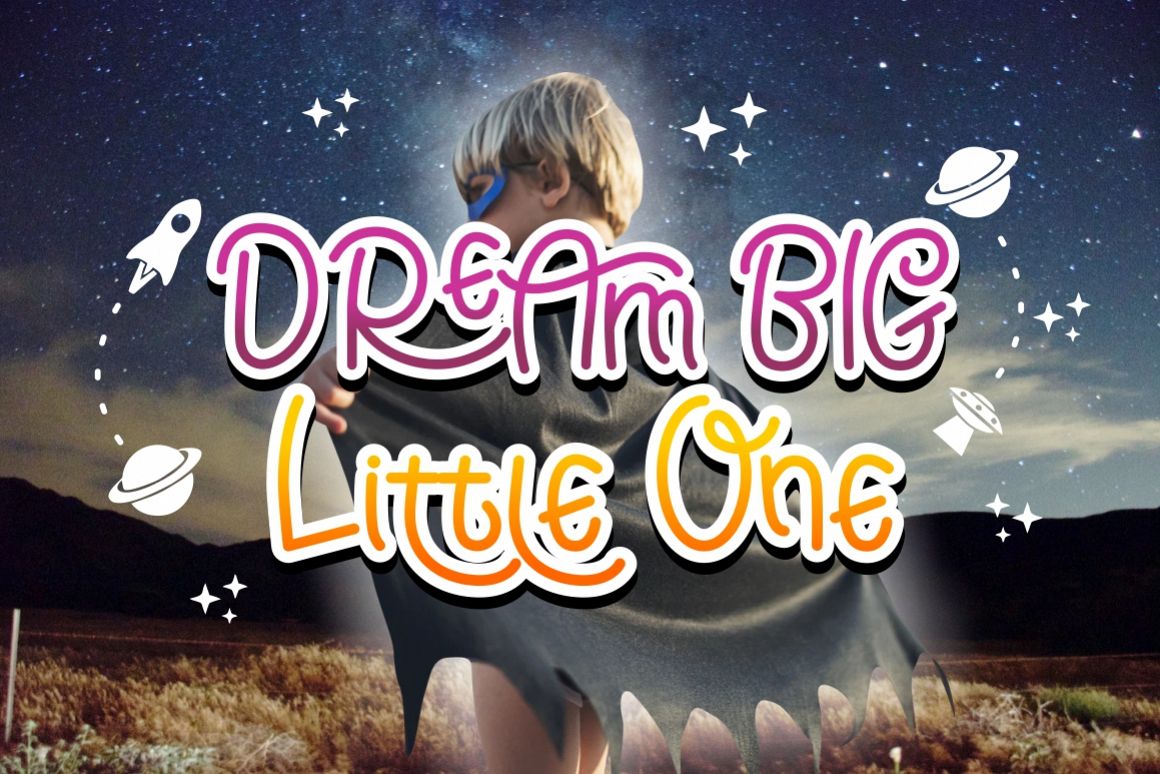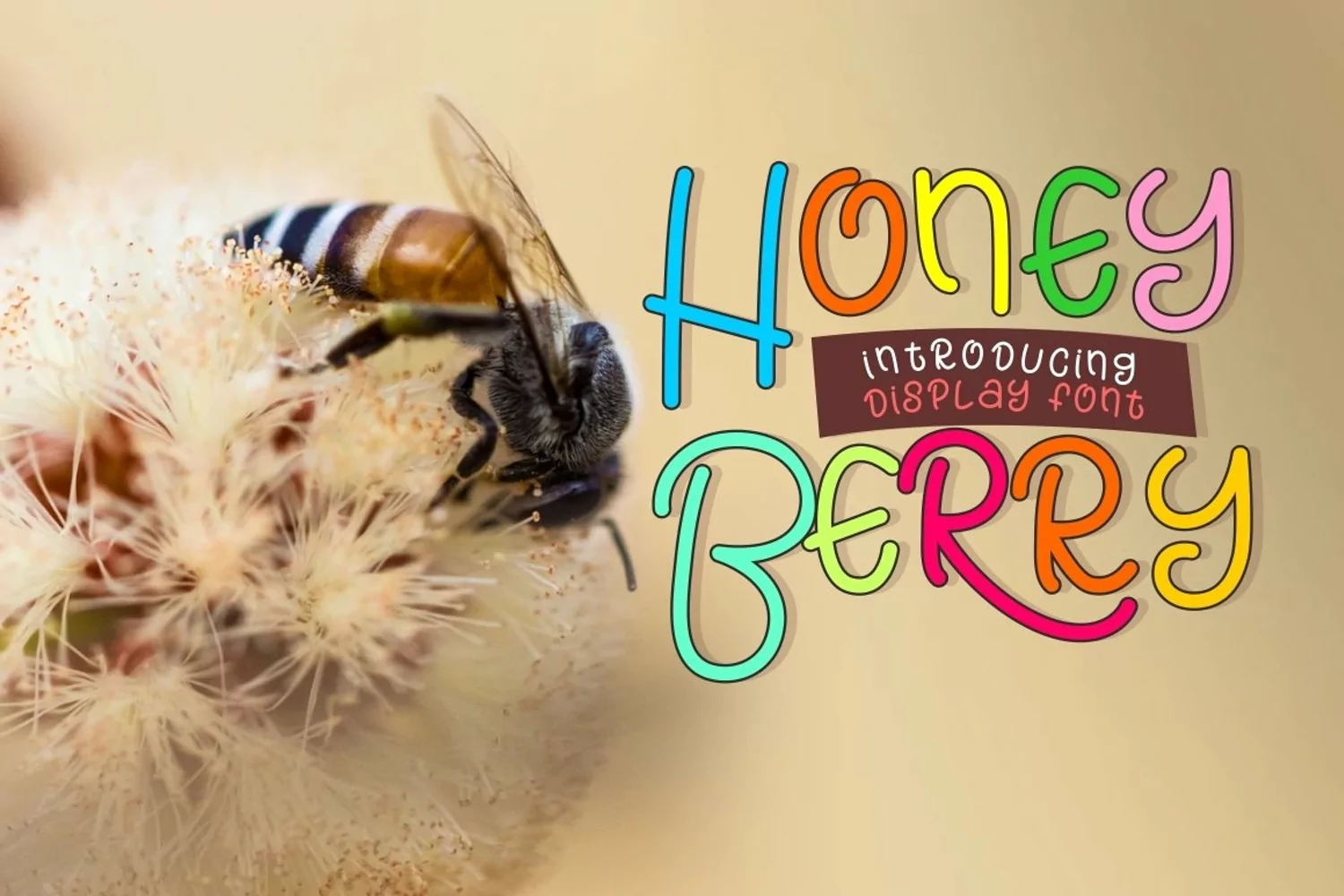
Introducing ...
Honey Berry is a playful cute and fun display font.
Honey Berry would be perfect for quotes, doodle, comic, books, greeting cards, toys, posters, baby clothing, picture books or anything that requires a fun and happiness look!